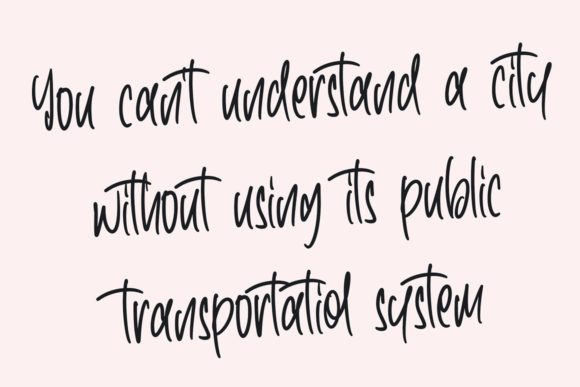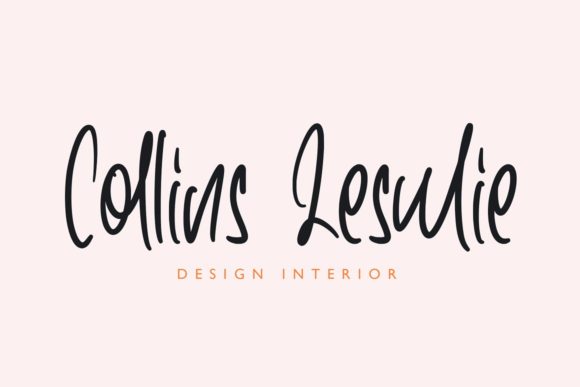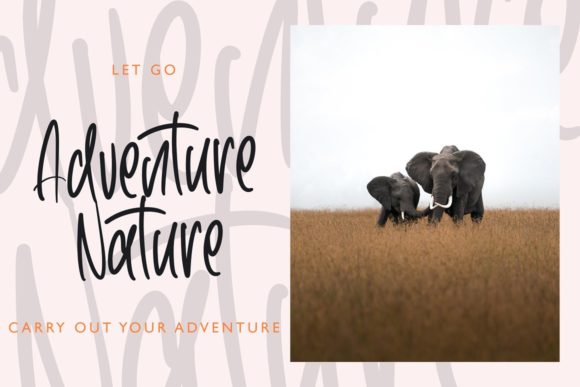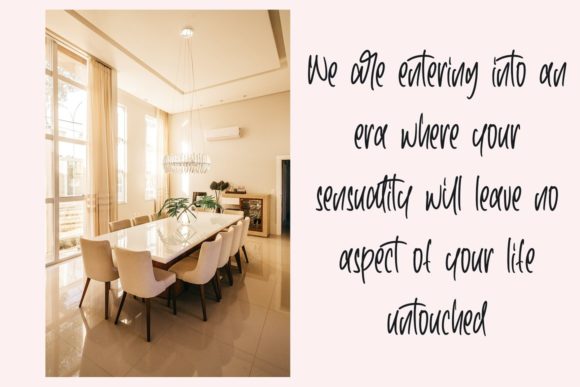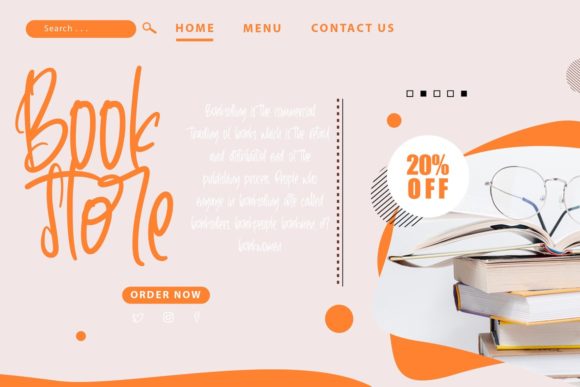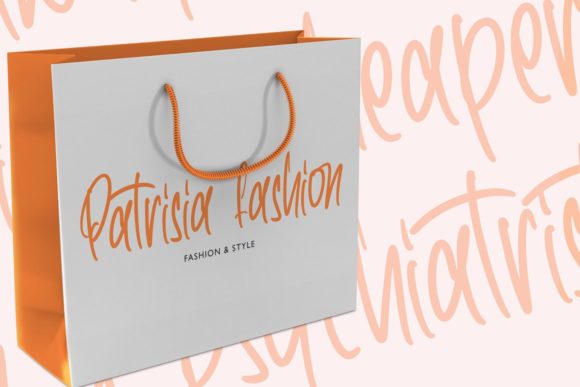
Introduction to Hillary Dream Font
Hillary Dream is a gorgeous and incredibly stylish handwritten font.
It looks beautiful on a variety of designs requiring a personalized style, such as wedding invitations, thank you cards, weddings, greeting cards, logos and so on .
Key Features of Hillary Dream Font
Why Choose Hillary Dream Font?
Hillary Dream Font offers exceptional quality and versatility, making it a valuable addition to your design toolkit. Whether you’re creating for personal projects or commercial use, Hillary Dream Font delivers professional results.